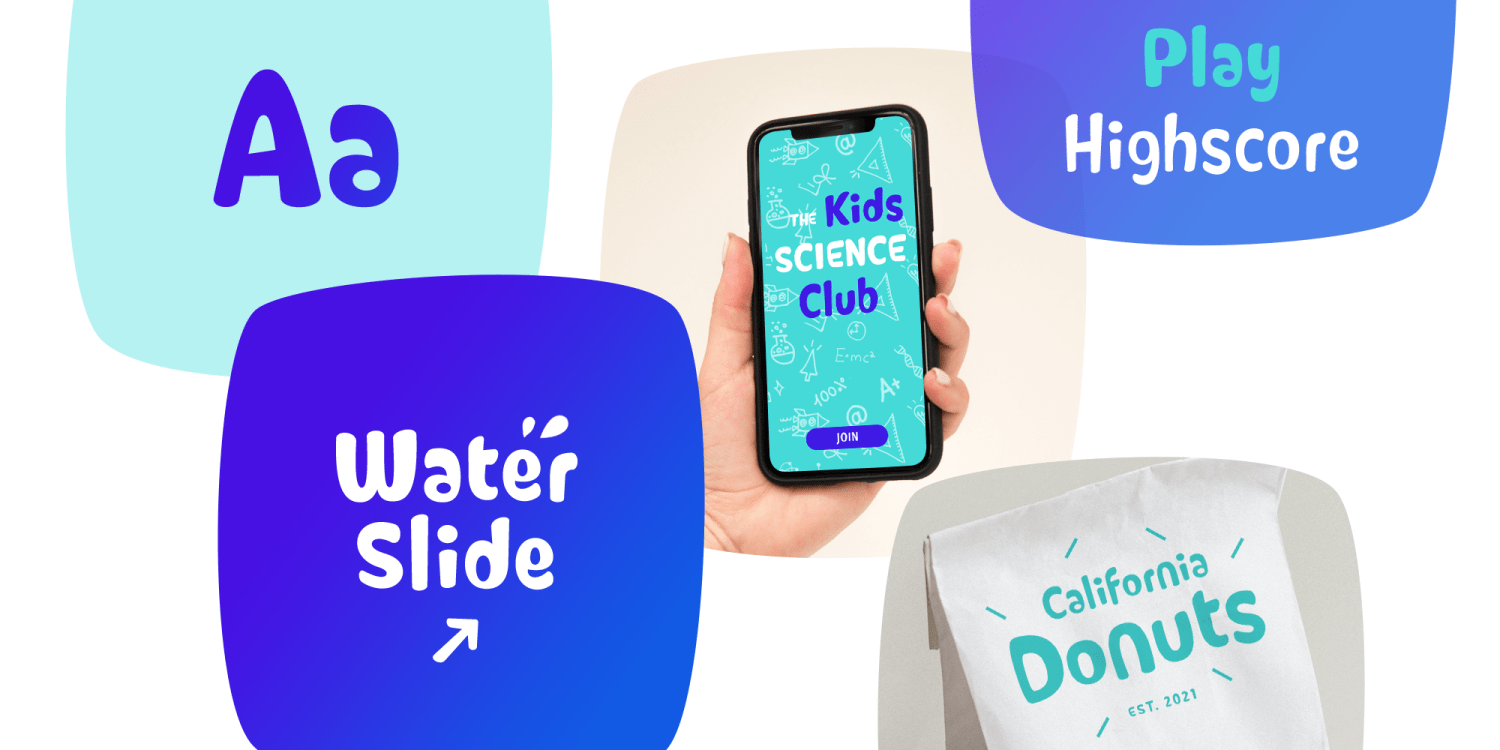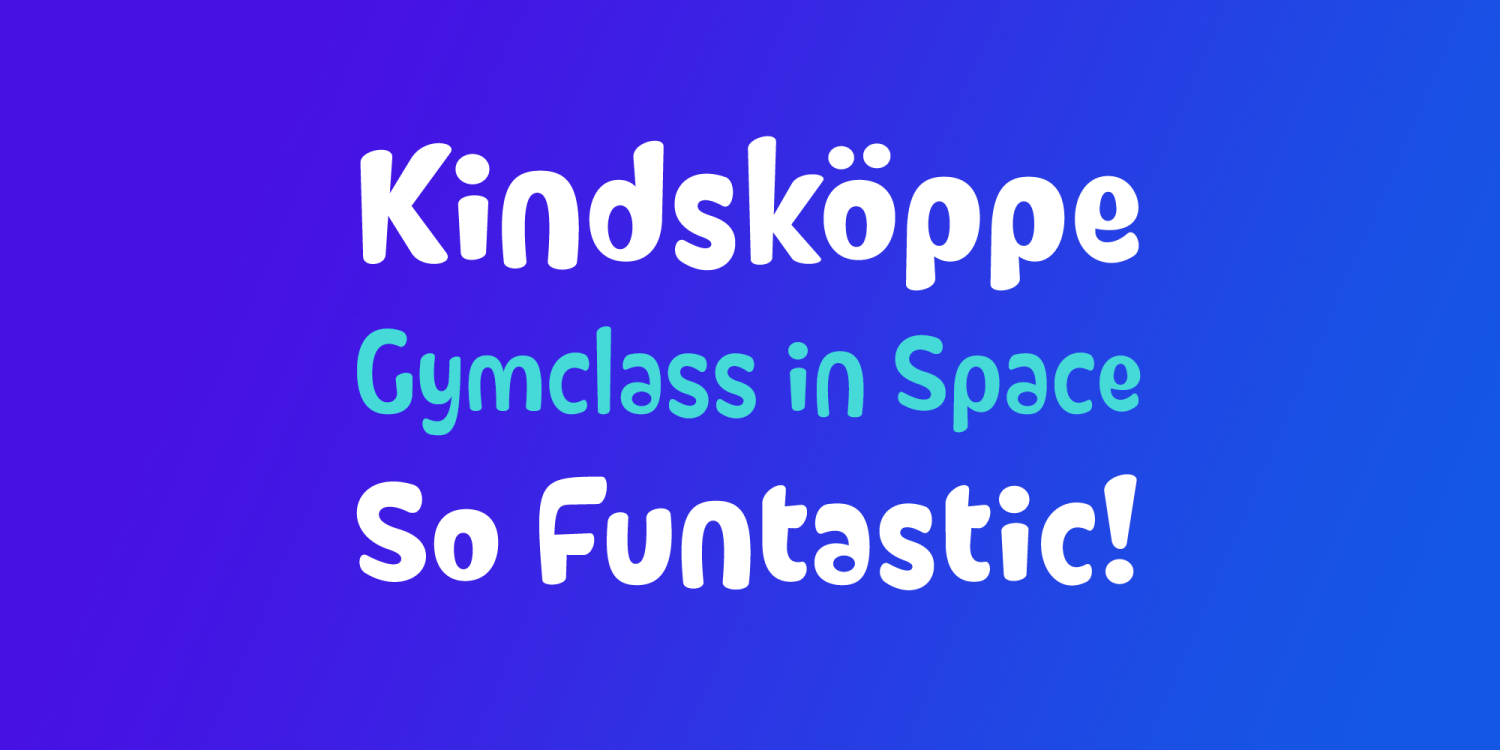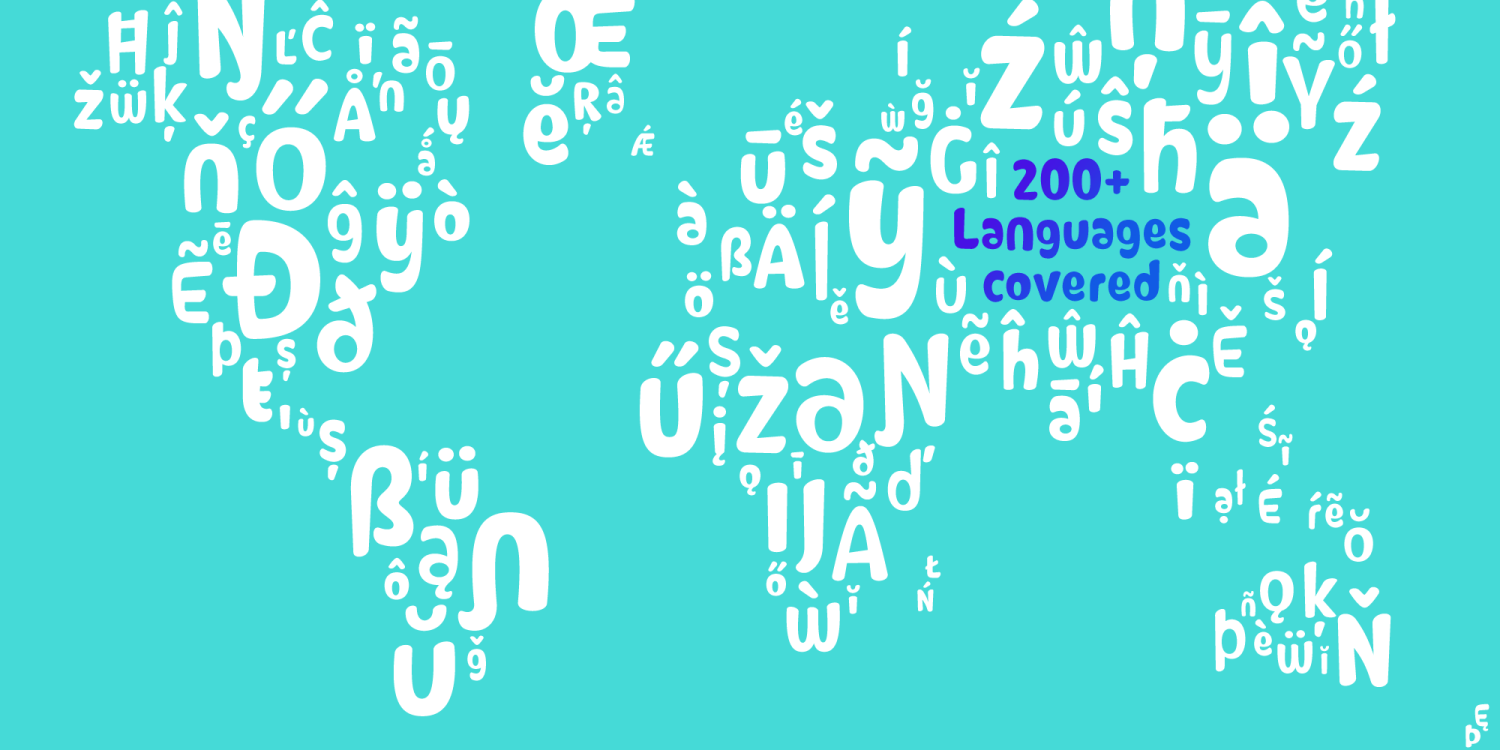
About Caliny
This cheerful font family combines cuteness and fun, making it a great choice for any kid\’s app, book, toy, packaging, movie, theme park and so much more. Caliny\’s curves are drawn with care and love. It covers more than 200 languages and has some advanced…